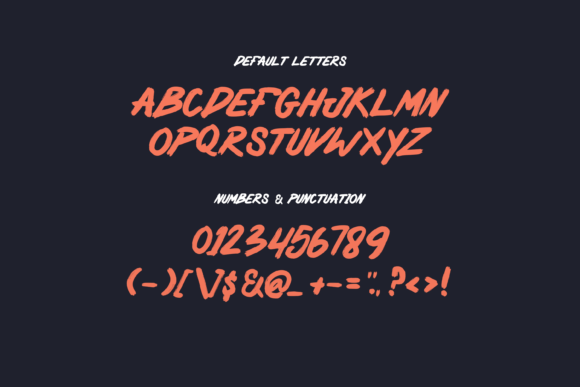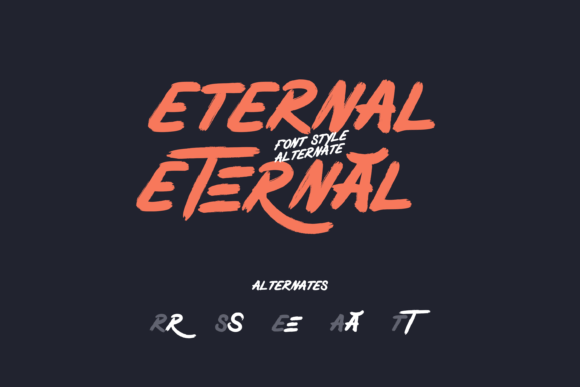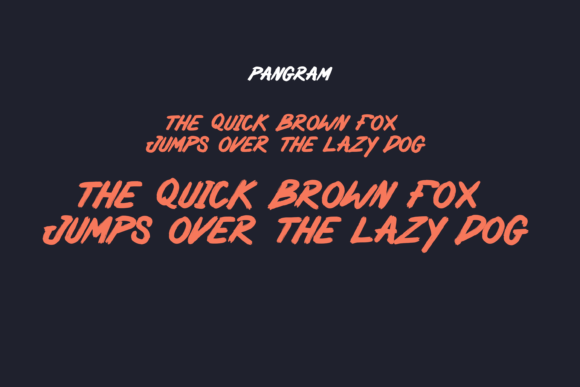
Introduction to Seyra Font
The β€œSEYRA” font is a captivating brush script font that exudes a sense of fluidity and artistic flair.
Its design features distinctive calligraphic strokes, delivering an elegant and handwritten appearance β€œSEYRA” font combines the warmth of hand-crafted elements with a modern twist, making it a versatile choice for a variety of design projects.
Why Choose Seyra Font?